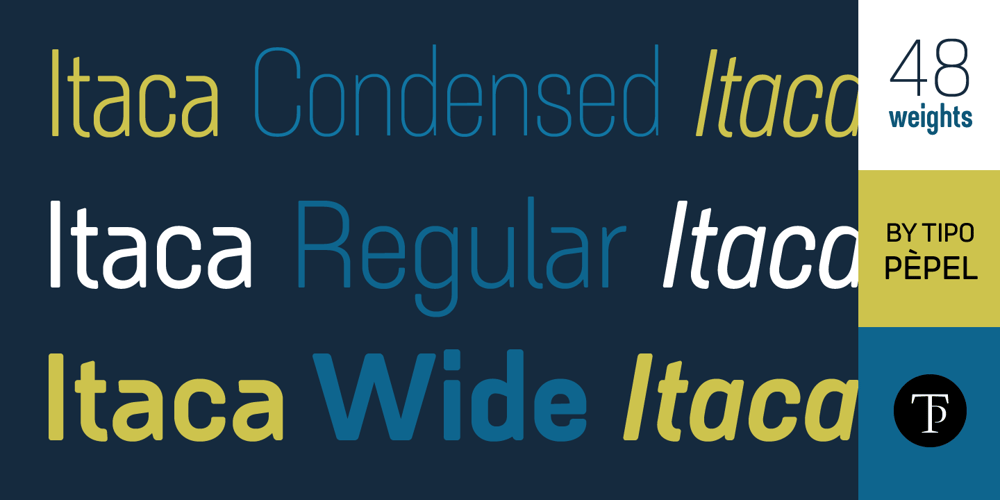
Itaca
Itaca font
Itaca Font Family was designed by Josep Patau and published by Tipo Pèpel. Itaca contains 48 styles and family package options. Known sometimes as “utopia”, “journey” other times, but also named with name´s place where one wants to go, “Ithaca” home of Ulysses. Typographic Cartesian coordinates are usually two, from the skeleton, the narrower, to the black, the widest. Nowadays, Maese Patau had traveled a road made by four Cartesian axes of typographic geography. A road from thick to thin, from expanded to condensed, to offer us a new family, a larger and extensive series than the traditional family. 48 “relatives” in a pure neo-grotesque font, with a large “eye” that makes it especially suitable for display. Solid hinting in small sizes due to it´s pure and simple basic forms. The jazzy cursive, available in all weights, looks as a simply slanted letter, but when works in conjunction with its regular version, generates an outstanding typographic game. As usual, Maese Patau offer us a extensive typeface in weights, extensive on supported languages, and all kind of OpenType´s capabilities.